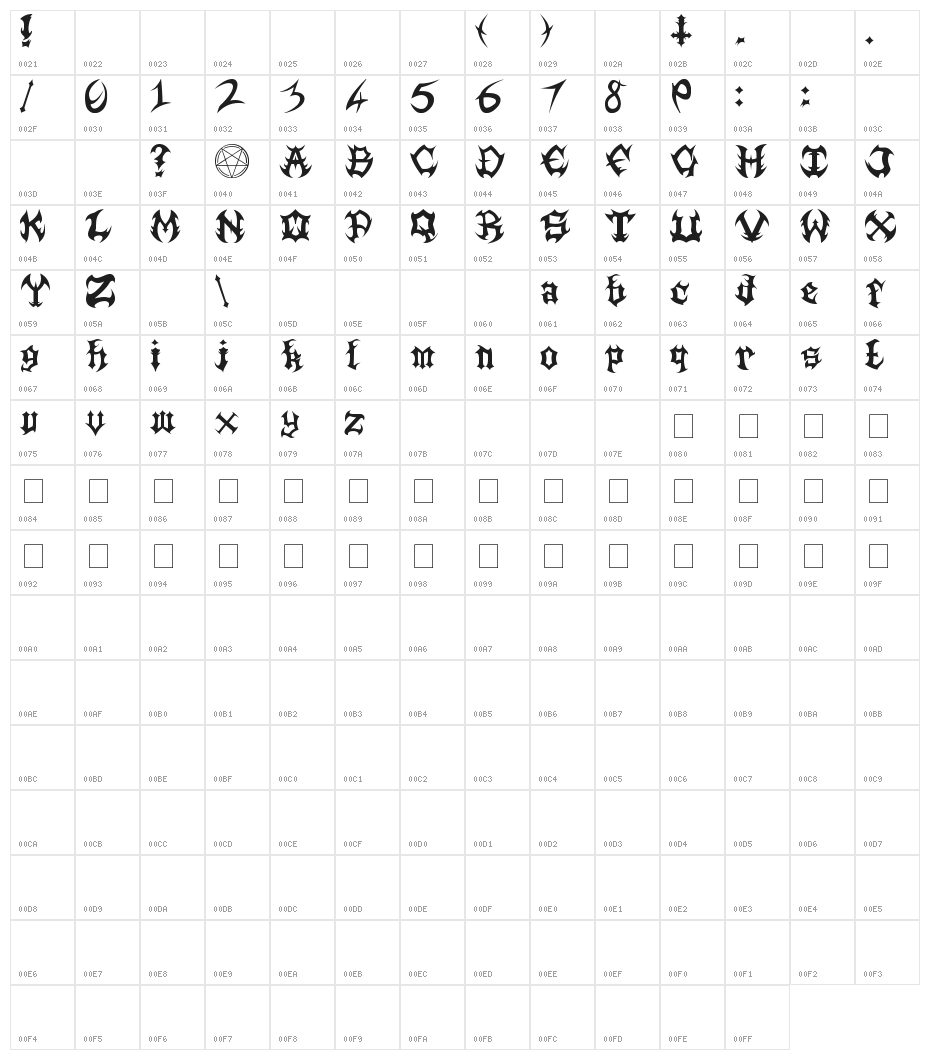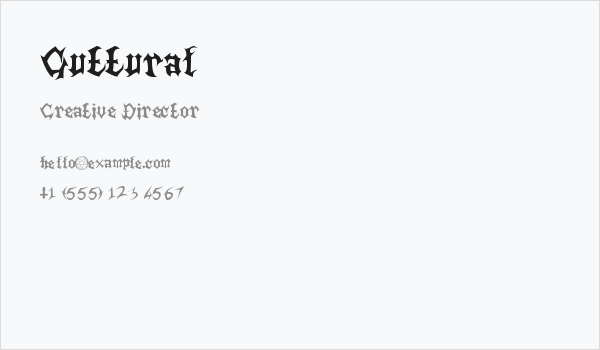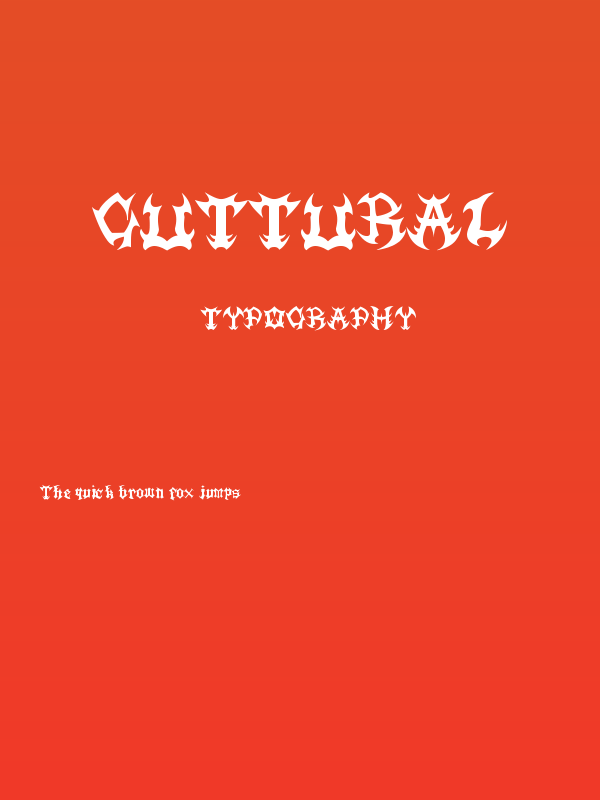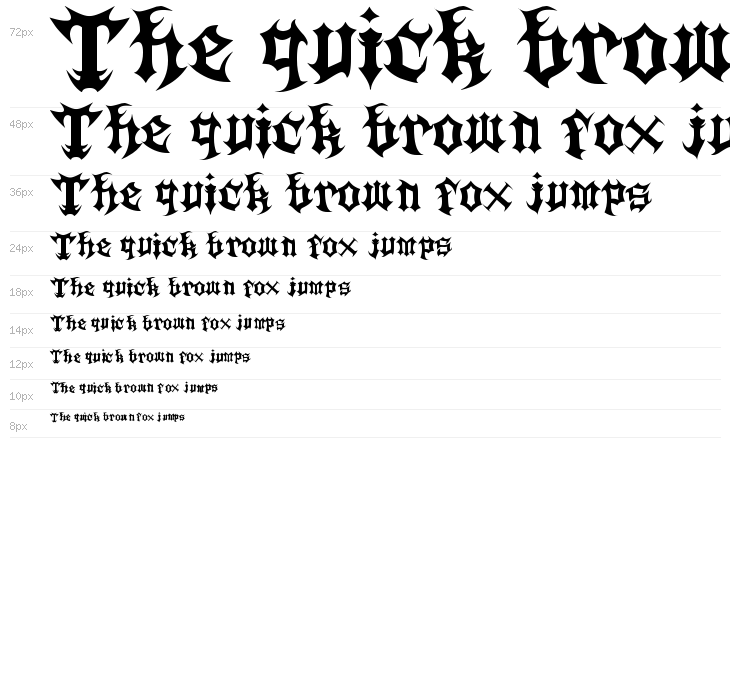
Guttural Font
This font features a bold and aggressive design with sharp, angular edges and a gothic influence. The characters are highly stylized, with intricate details that give them a fierce and dramatic appearance. The uppercase letters are particularly striking, with pointed serifs and a strong presence. The lowercase letters maintain the same intensity, creating a cohesive and powerful look. Numbers and special characters follow the same design principles, ensuring consistency across all elements. This font is ideal for projects that require a bold statement and a touch of dark elegance.
Overall StyleGothic, Dramatic
Proposed ProjectsPerfect for album covers, posters, branding for edgy or alternative products, and any design needing a dramatic flair.